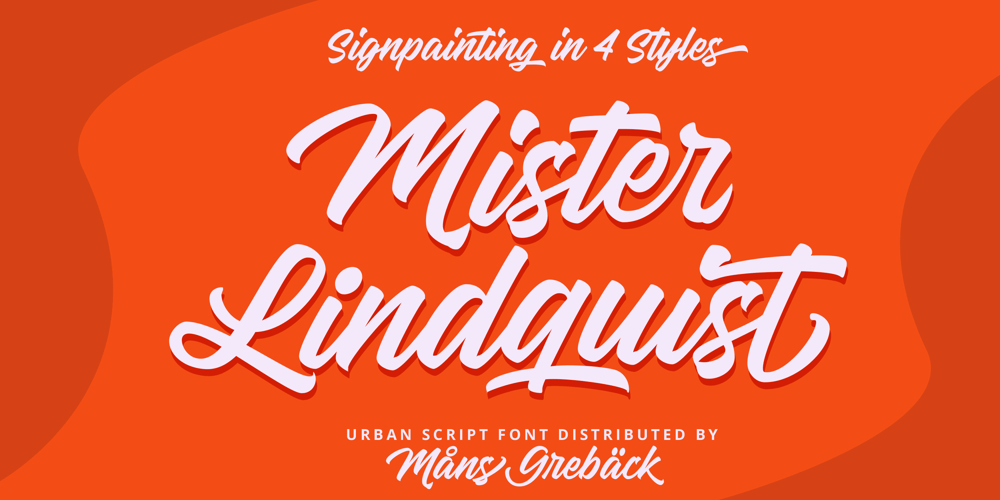
Mister Lindquist Font Family was designed by Måns Grebäck and published by Mans Greback. Mister Lindquist contains 4 styles and family package options. Mister Lindquist is a calligraphic font that blends the artistry of vintage sign painting and the expressive movement found in bold signatures. This font captures the essence of an era of craft while infusing your designs with a cool, contemporary flair that is perfect for branding, advertising, and creative projects that require a professional touch of nostalgia.The Mister Lindquist font family features multiple styles to suit your design needs: Regular and Bold, and their respective Italics. These versatile options allow you to create compositions that remains fresh while retaining the authentic quality.Use underscore _ to make a underline. Example: Scr_iptUse multiple underscores for longer swashes. Example: Extr___emeEquipped with advanced OpenType functionality, Mister Lindquist ensures top-notch quality and provides you with full control and customizability. The font includes stylistic alternates, ligatures, and other features to make your designs truly unique and captivating.Offering extensive lingual support, Mister Lindquist covers all Latin-based languages, from Northern Europe to South Africa, from America to South-East Asia, and includes all the characters and symbols required for your creative projects, such as punctuation and numbers.Mans Greback, a Swedish typeface designer known for crafting high-quality fonts with a focus on versatility and aesthetics, created the Mister Lindquist font to provide designers with a true sign painter’s font.